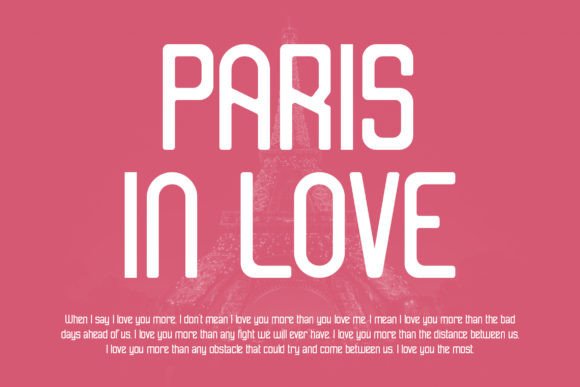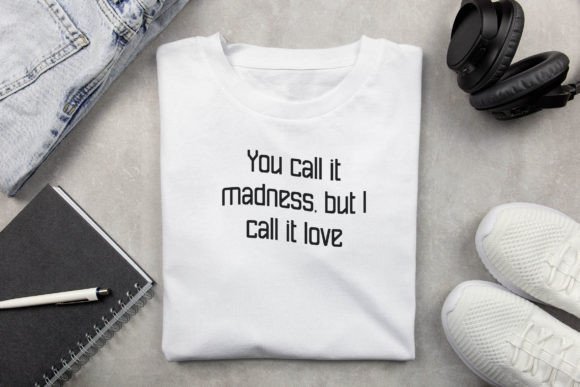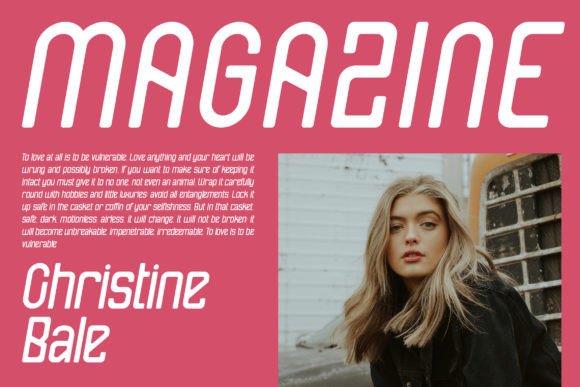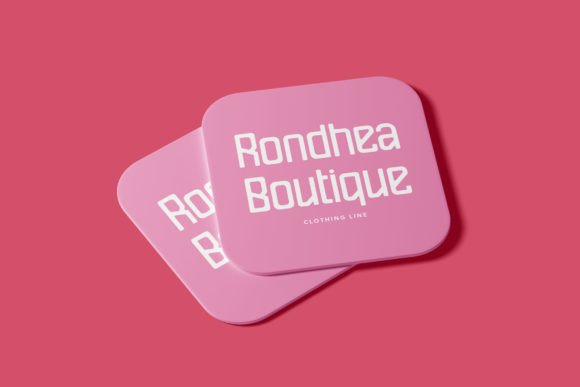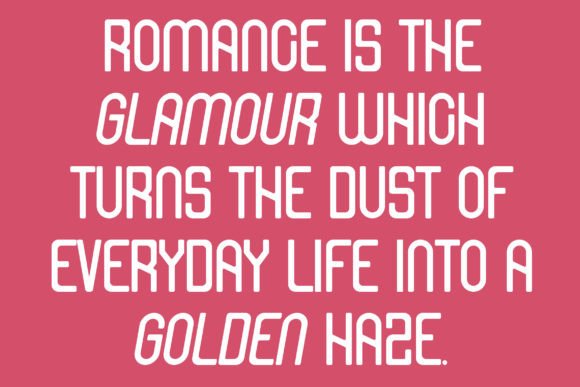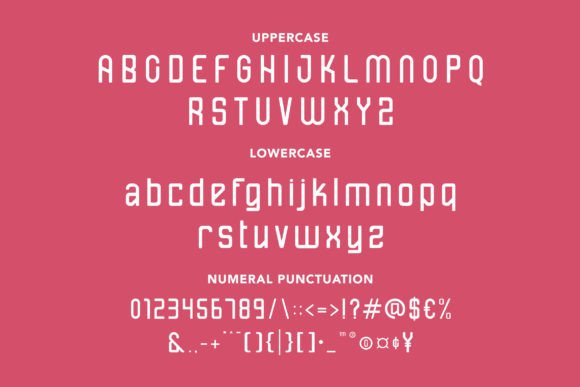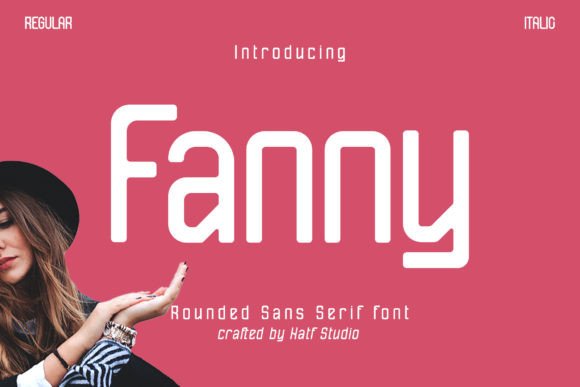
Fanny Font: The Perfect Rounded Sans Serif Font for Your Creative Projects
Are you a designer or crafter looking for a unique and versatile font to elevate your creative projects? Look no further than Fanny Font, a rounded sans serif font that is perfect for a wide range of applications. In this article, we’ll take a closer look at Fanny Font, its features, and how you can use it to take your designs to the next level.
What is Fanny Font?
Fanny Font, also known as Fanny – Rounded Sans Serif Font, is a modern font designed with a playful and approachable feel. It comes in 2 stylish font styles, making it perfect for a variety of creative projects. The font is characterized by its rounded edges, which give it a friendly and approachable look that’s perfect for designs that need a personal touch.
Key Features of Fanny Font
So, what makes Fanny Font so special? Here are some of its key features:
• Rounded Sans Serif Design: Fanny Font features a rounded sans serif design that’s perfect for creating modern and playful designs.
• 2 Font Styles: The font comes in 2 stylish font styles, giving you flexibility and versatility in your designs.
• Handwritten Feel: Despite being a digital font, Fanny Font has a handwritten feel that’s perfect for designs that need a personal touch.
• Easy to Read: The font is easy to read, even at small sizes, making it perfect for body text and captions.
Use Cases for Fanny Font
Fanny Font is a versatile font that can be used for a wide range of creative projects. Here are some use cases to get you started:
• Branding Projects: Use Fanny Font to create a unique and memorable brand identity for your business or organization.
• Logos: The font’s rounded edges and playful feel make it perfect for creating modern and fun logos.
• Wedding Designs: Fanny Font is perfect for creating beautiful and elegant wedding designs, such as invitations, stationery, and more.
• Media Posts: Use the font to create eye-catching media posts that stand out on social media.
• Advertisements: Fanny Font is perfect for creating ads that need a playful and attention-grabbing feel.
• Product Packaging: Use the font to create unique and memorable product packaging that stands out on store shelves.
• Product Designs: Fanny Font is perfect for creating product designs that need a modern and playful feel.
• Labels: Use the font to create custom labels that add a personal touch to your products.
• Photography: Fanny Font is perfect for creating beautiful and elegant watermarks for your photos.
• Invitations: Use the font to create custom invitations for special occasions, such as birthday parties and weddings.
• Stationery: Fanny Font is perfect for creating custom stationery, such as notebooks and journals.
Why Choose Fanny Font?
So, why should you choose Fanny Font for your creative projects? Here are just a few reasons:
• Unique and Versatile: Fanny Font is a unique and versatile font that can be used for a wide range of creative projects.
• High-Quality Design: Fanny Font is designed with high-quality and attention to detail, ensuring that your designs look professional and polished.